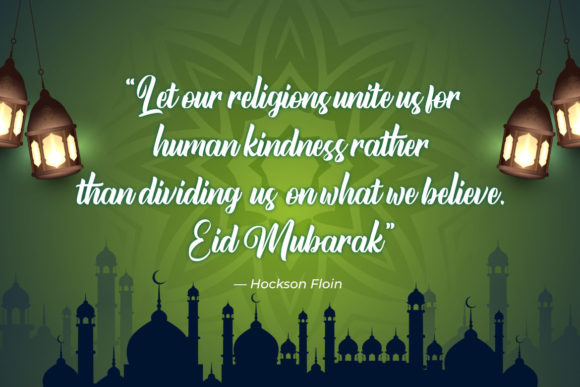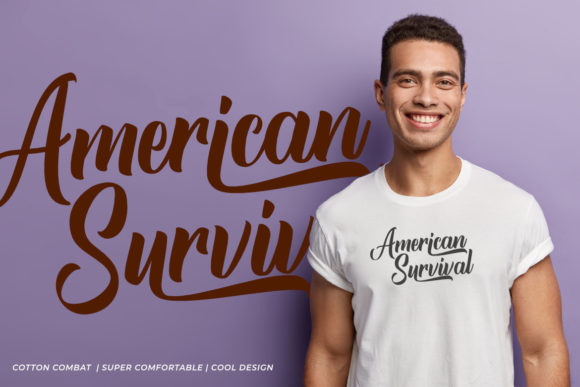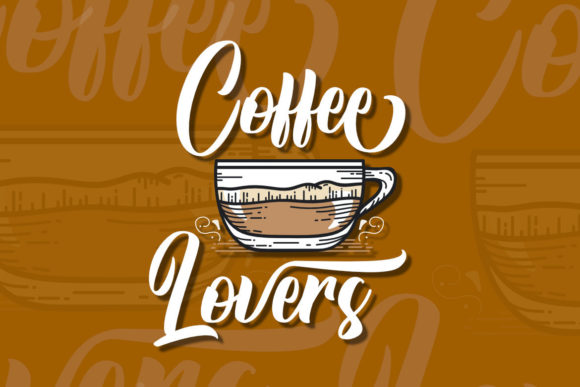
Introduction to Ramadhan Mubarak Font
Ramadhan Mubarak is a lovely and well balanced handwritten font.
It is the best choice for creating eye catching logos, branding and quotes Ramadhan Mubarak is PUA encoded which means you can access all of the glyphs and swashes with ease.
Key Features of Ramadhan Mubarak Font